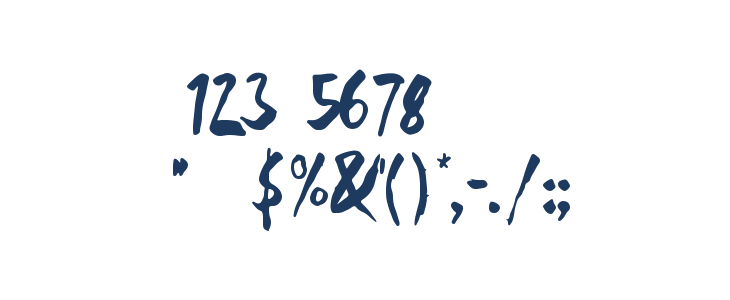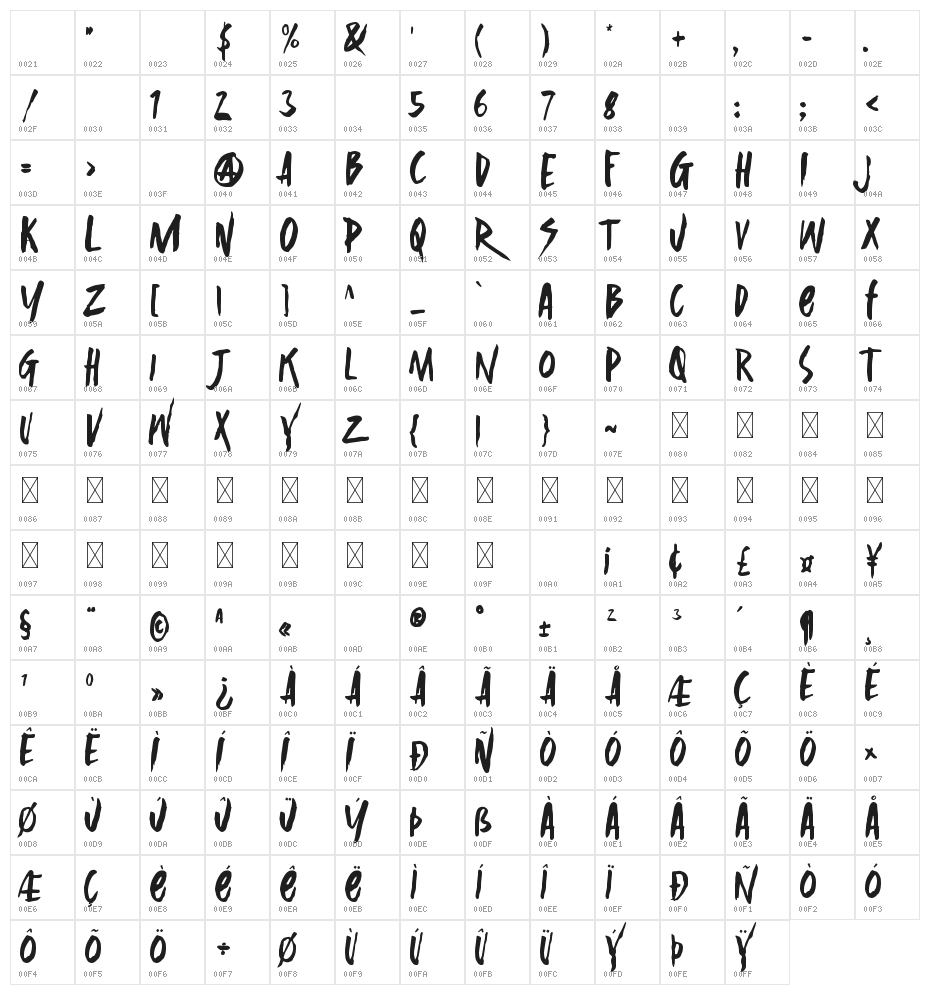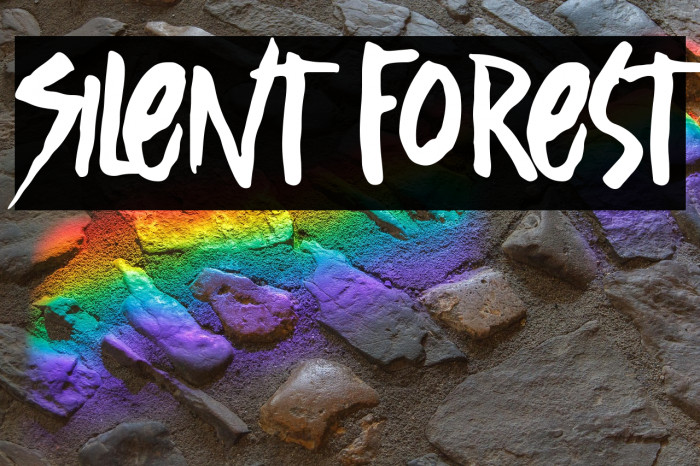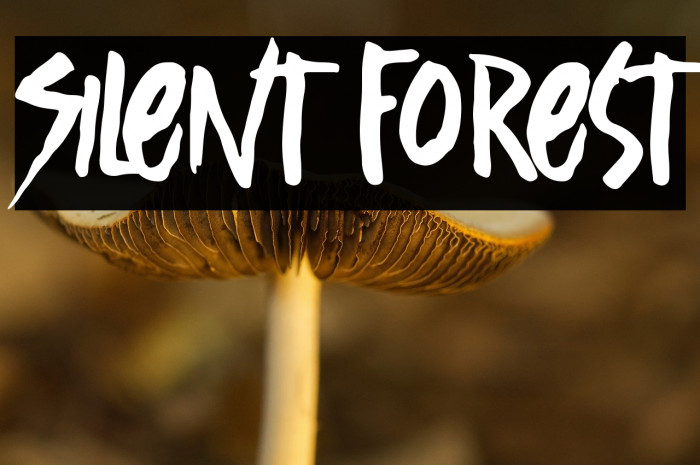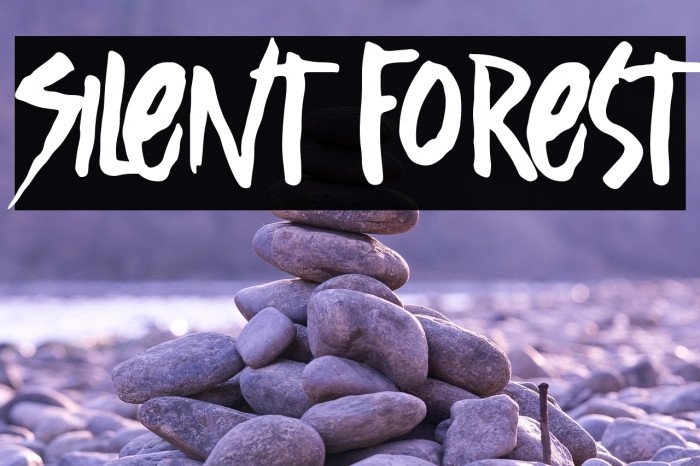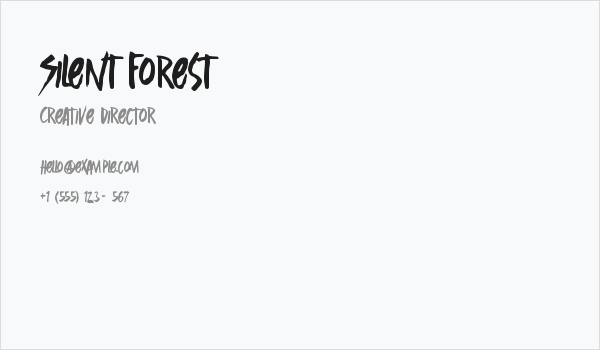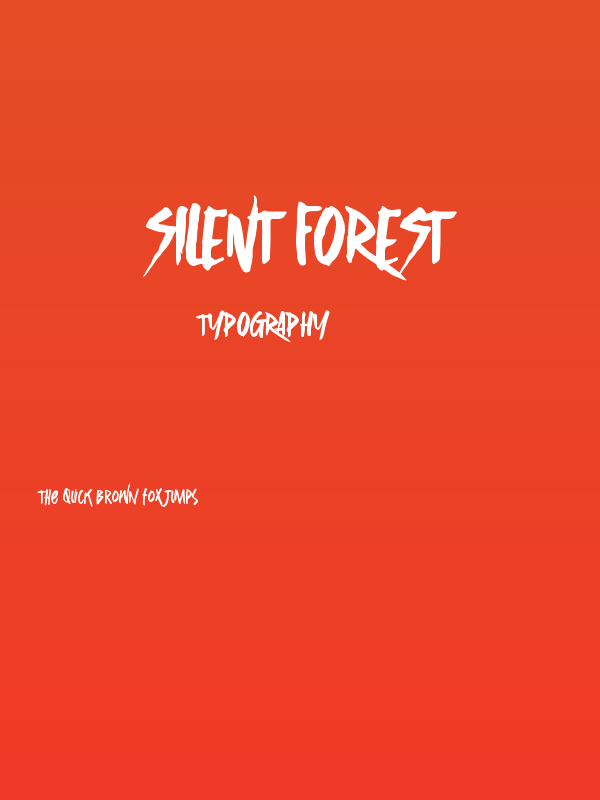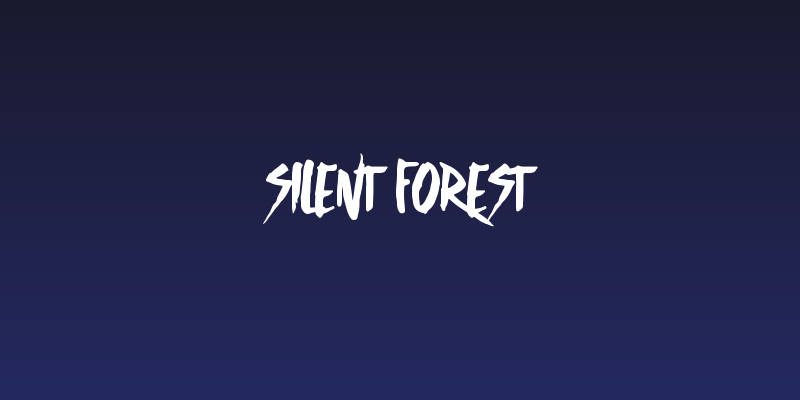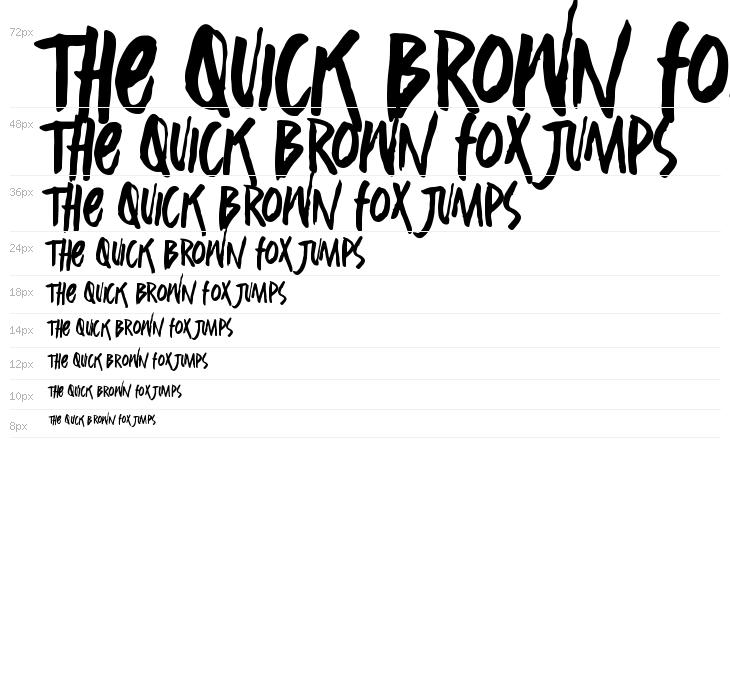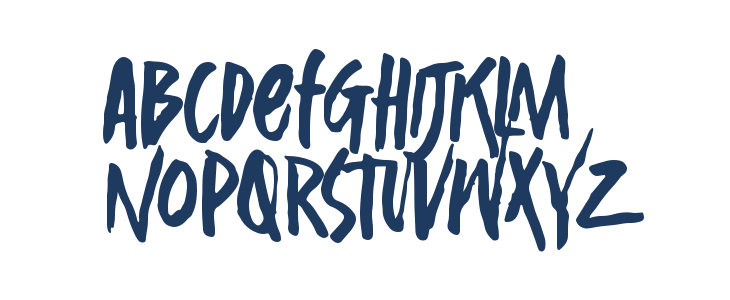
Silent Forest Font
Silent Forest Description
This font features a bold, expressive style with a hand-painted appearance. The characters are irregular and dynamic, with a sense of movement and energy. The strokes are thick and vary in width, giving the font a lively and artistic feel. The uppercase and lowercase letters maintain a consistent style, with exaggerated curves and angles that add to its unique character. The numbers and special characters follow the same design principles, ensuring a cohesive look across all glyphs. This font is ideal for projects that require a bold and creative touch, such as posters, album covers, or branding materials that aim to stand out.
| Overall Style | Artistic, Expressive |
| Proposed Projects | Ideal for posters, album covers, branding materials, and creative projects. |